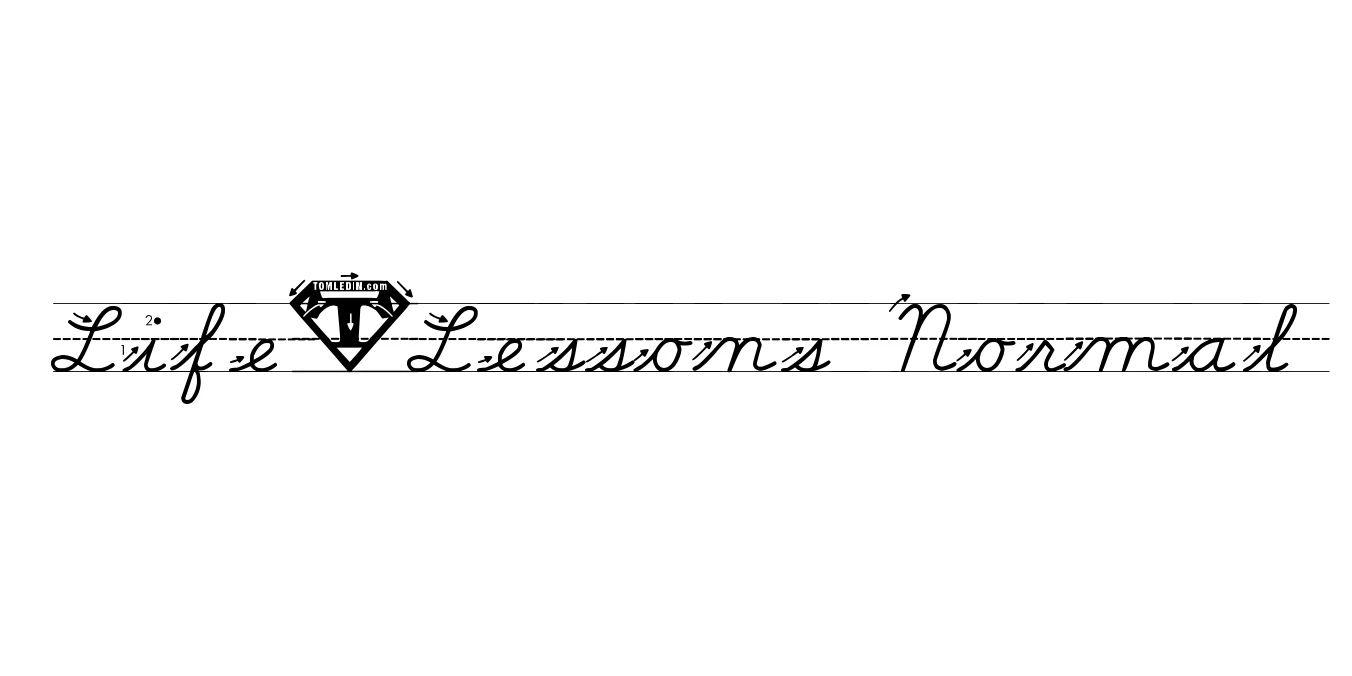
Life-Lessons Normal
Designed by Misti's Fonts
| Category | Handwritten Script |
Life-Lessons Normal was developed by Misti's Fonts, a foundry renowned for its expressive and accessible handwritten typefaces. This specific font was crafted to evoke a sense of authenticity and personal reflection, aiming to capture the organic flow of manual penmanship. Since its introduction to the design community, it has become a staple for projects requiring a touch of human warmth, frequently utilized in digital scrapbooking and inspirational social media content.
From a technical standpoint, the font features a medium visual weight with monolinear strokes that simulate the consistent pressure of a felt-tip marker. The x-height is generously proportioned, which maintains high legibility even when used in longer strings of text. The character architecture is defined by slightly rounded terminals and an irregular baseline that avoids mechanical rigidity, creating a rhythmic and natural aesthetic that excels in display environments.
Life-Lessons Normal Best Uses
Ideal for inspirational quotes and personal story overlays on Instagram.
Excellent for personalized greeting cards, invitations, and wedding favors.
Perfect for creating a realistic handwritten look in digital planners and blogs.